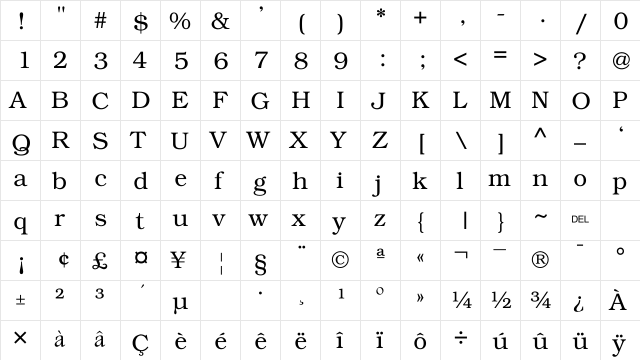
KacstTitle Font Preview
KacstTitle KacstTitle
Design Context for KacstTitle Typeface
KacstTitle takes a measured approach to typography — its balanced proportions and neutral character make it a reliable workhorse for both digital and print work.